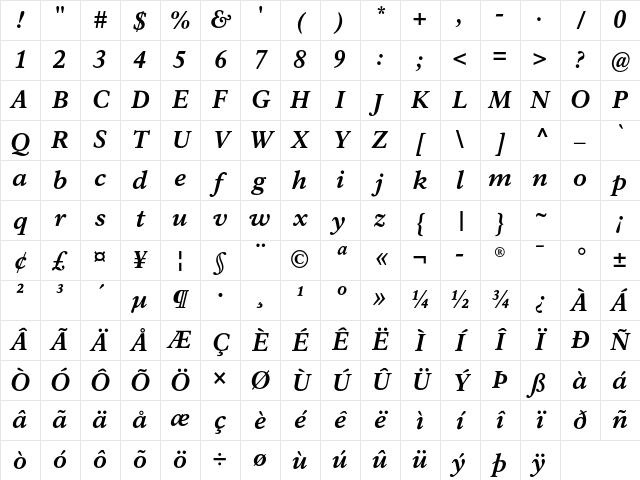
Rawlinson Md Heavy Italic
Designer: James Montalbano
Design Context for Rawlinson Md
Rawlinson Md is a composed and adaptable typeface that performs quietly and consistently across a wide range of design contexts. The slanted form adds forward momentum and visual energy.